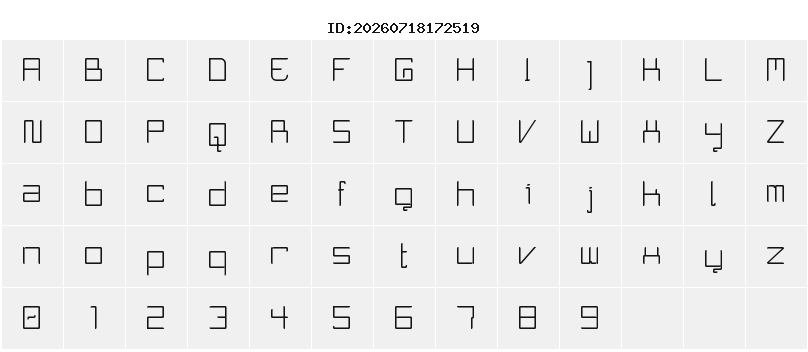
• Font Name: Curvature XD
• Designer: Yun Gonzalez
• Manufacturer: TechFussion
About Curvature XD.ttf
Curvature XD.ttf is a modern, elegant sans-serif font designed for ultimate readability and visual harmony. Perfect for branding, headlines, web design, and print materials.